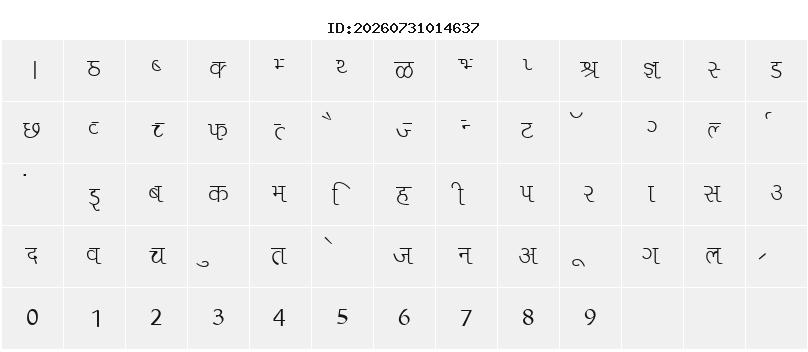
Liza Preview
• Font Name: Liza
• Full Font Name: Liza
About Liza.ttf
Liza.ttf is a modern, elegant sans-serif font designed for ultimate readability and visual harmony. Perfect for branding, headlines, web design, and print materials.